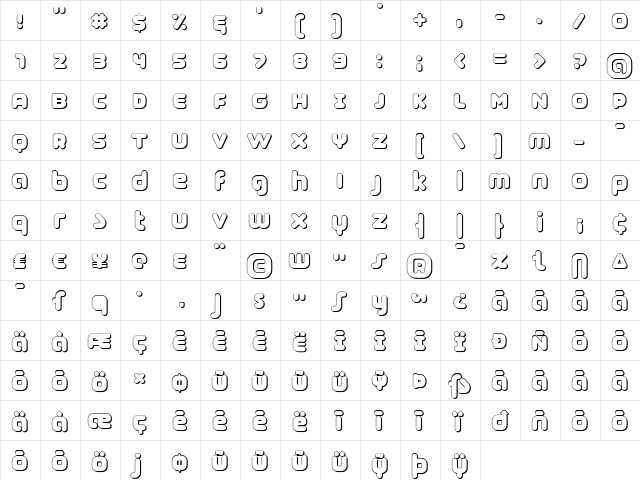
Coconut Shadow Regular
Design Context for Coconut Shadow Typeface
Coconut Shadow is built around its visual character rather than neutral utility — its distinctive forms are designed to make an impression at display sizes.
Font Pairing: Pair with a clean neutral sans-serif for body copy to let Coconut Shadow's character lead without overwhelming the composition.
Pro Tip: Treat Coconut Shadow as the centrepiece of your typographic hierarchy. One strong heading set in a decorative face can carry an entire layout.